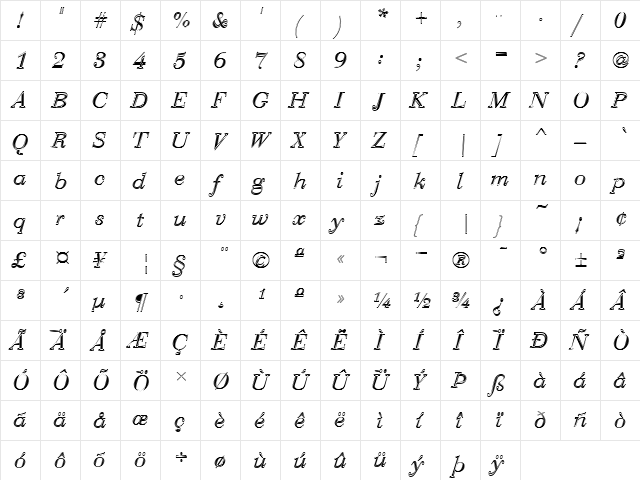
Bauer Bodoni D In1 Regular Font Preview
Bauer Bodoni D In1 Regular
Bauer Bodoni D In1 Regular Font Details
Design Context for Bauer Bodoni D In1 Typeface
Bauer Bodoni D In1 offers clean, dependable letterforms without strong stylistic allegiance, making it a practical choice for designers who need flexibility.
Pro Tip: Use Bauer Bodoni D In1 in both headline and body roles to test its range before committing to a single application.